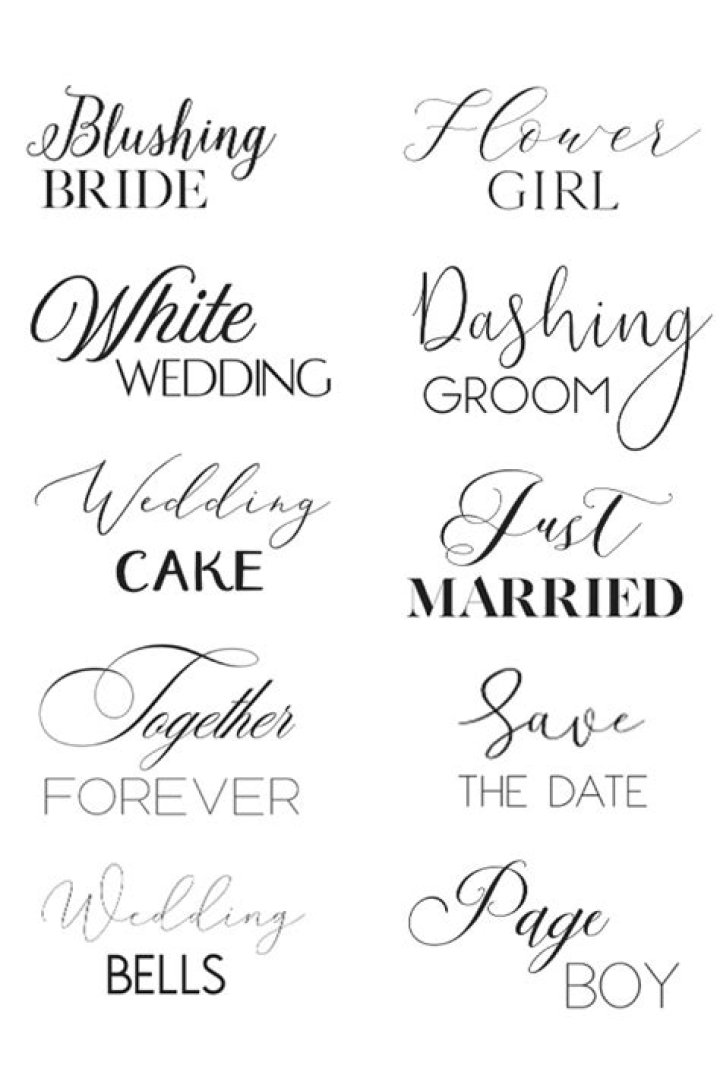
What font is used for weddings?
Script and calligraphy are the most popular fonts used for wedding invitations. They’re perfect fonts for wedding initials as well. as they’re both stylish and romantic.
What is a nice font for invitations?
“Sans serif fonts are the cleanest letters, with no extra flourishes or feet. They are excellent for digital invitations but also the most legible,” says Kentris. “They have a modern elegance and can be paired together to create contrast through different thicknesses of fonts.”
What is the best wedding font?
Some of the most desired fonts for wedding invitations are:
- Darleston.
- Didot.
- Hillda.
- Honeymoon.
- Lato.
- Modesty Regular.
- Neutraface 2 Text Light.
- Palatino Linotype. A favorite amongt the design community, this font gives a wonderfully elegant and timeless look to your wedding invitations.